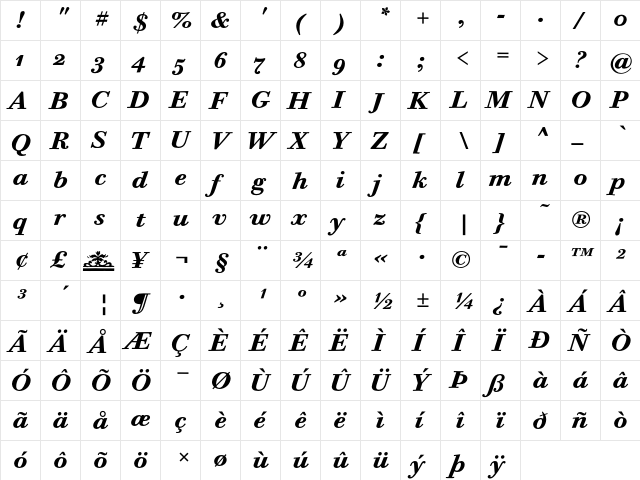
Bodoni Six ITC Bold Italic OS Font Preview
Design Context for Bodoni Six ITC Typeface
Bodoni Six ITC takes a measured approach to typography — its balanced proportions and neutral character make it a reliable workhorse for both digital and print work. Its italic angle brings a sense of urgency and motion to the letterforms. Its bold stroke weight gives it real presence on the page.
Pro Tip: Try Bodoni Six ITC for annotation and caption copy alongside an upright companion — the contrast in angle creates a dynamic but ordered typographic system.